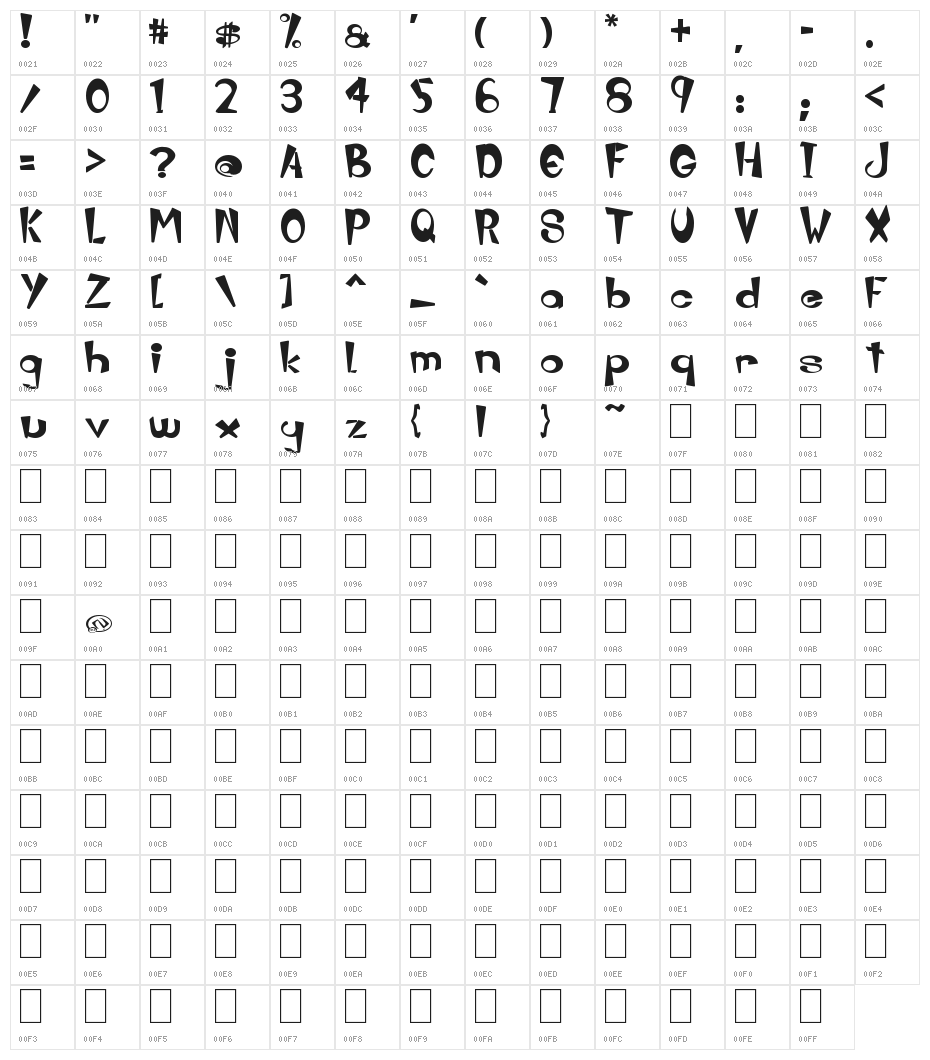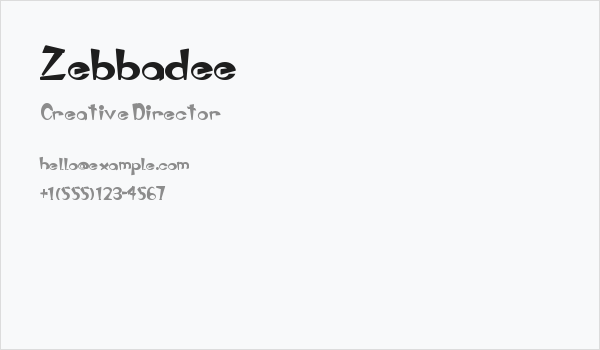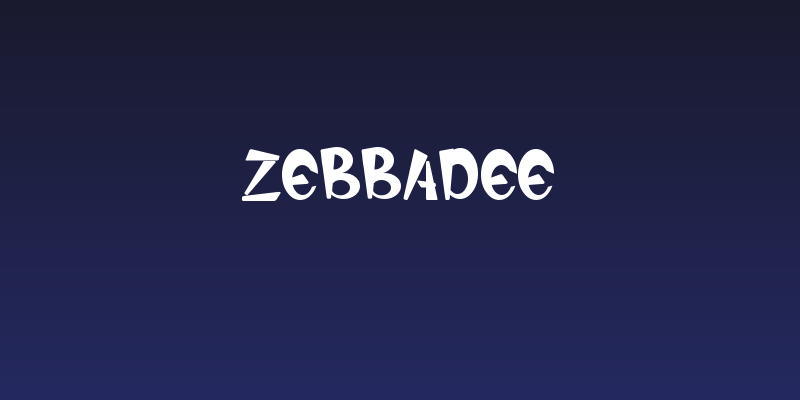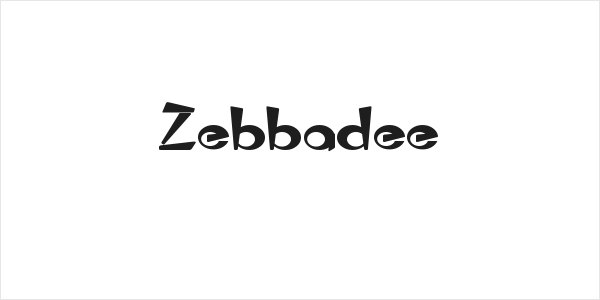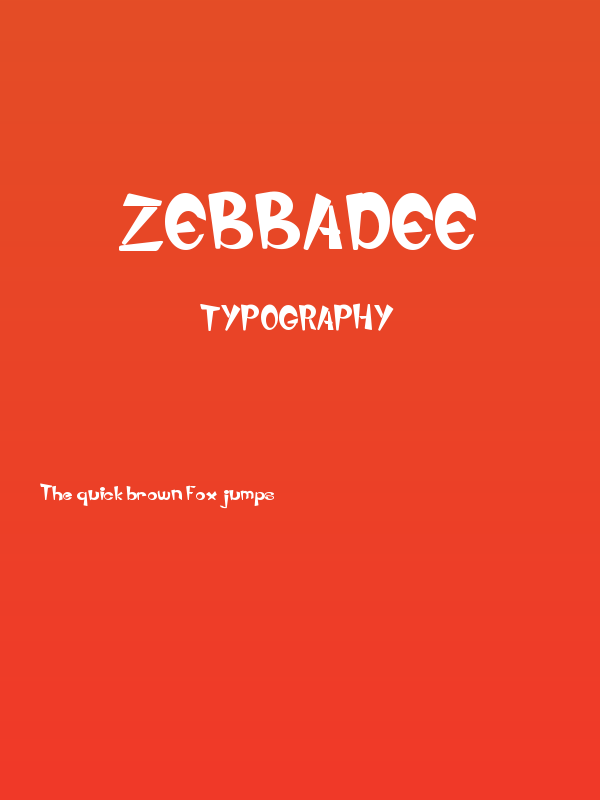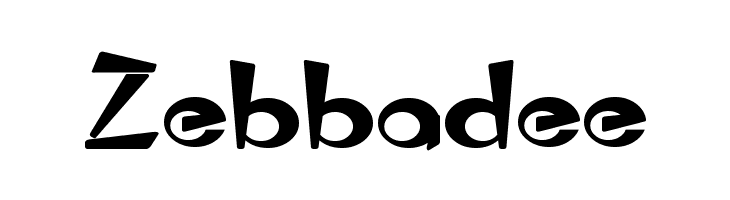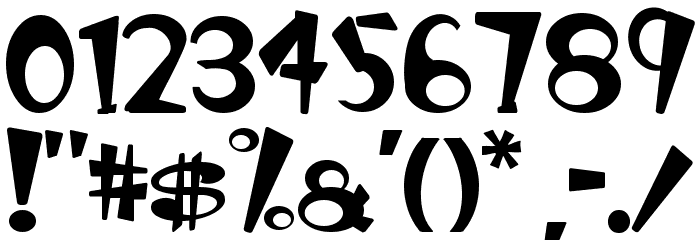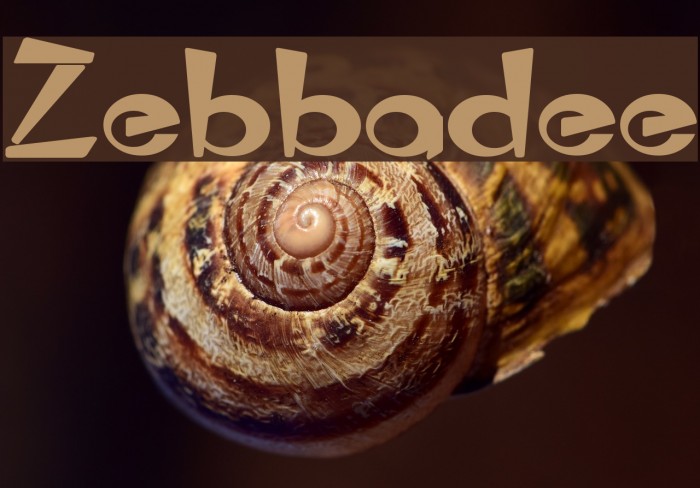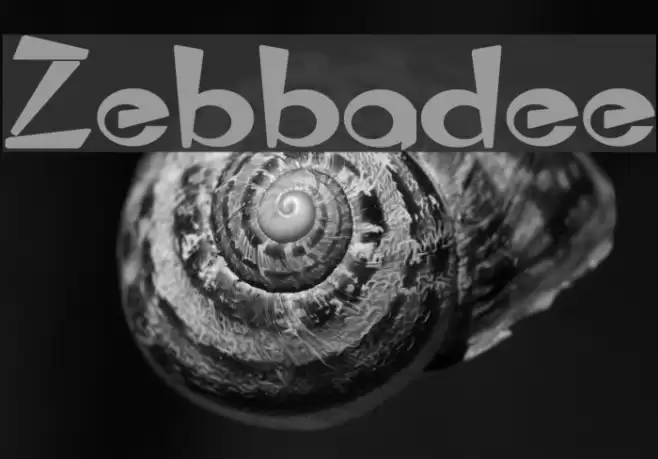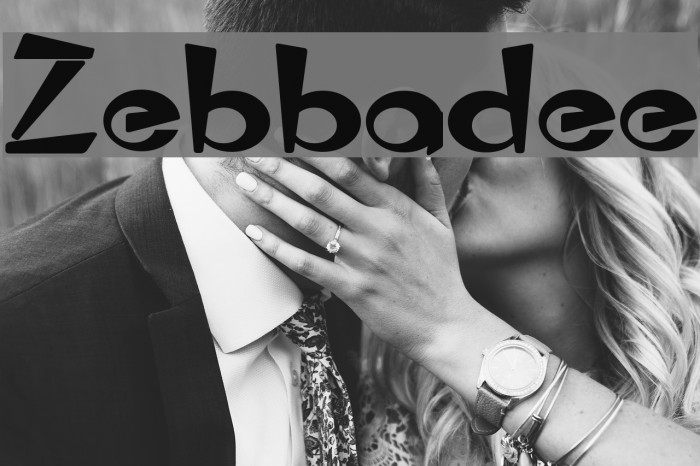
Zebbadee Font
| Estilo general | Playful, Whimsical |
| Proyectos propuestos | Ideal for children's books, comic strips, playful branding, party invitations, and creative posters. |